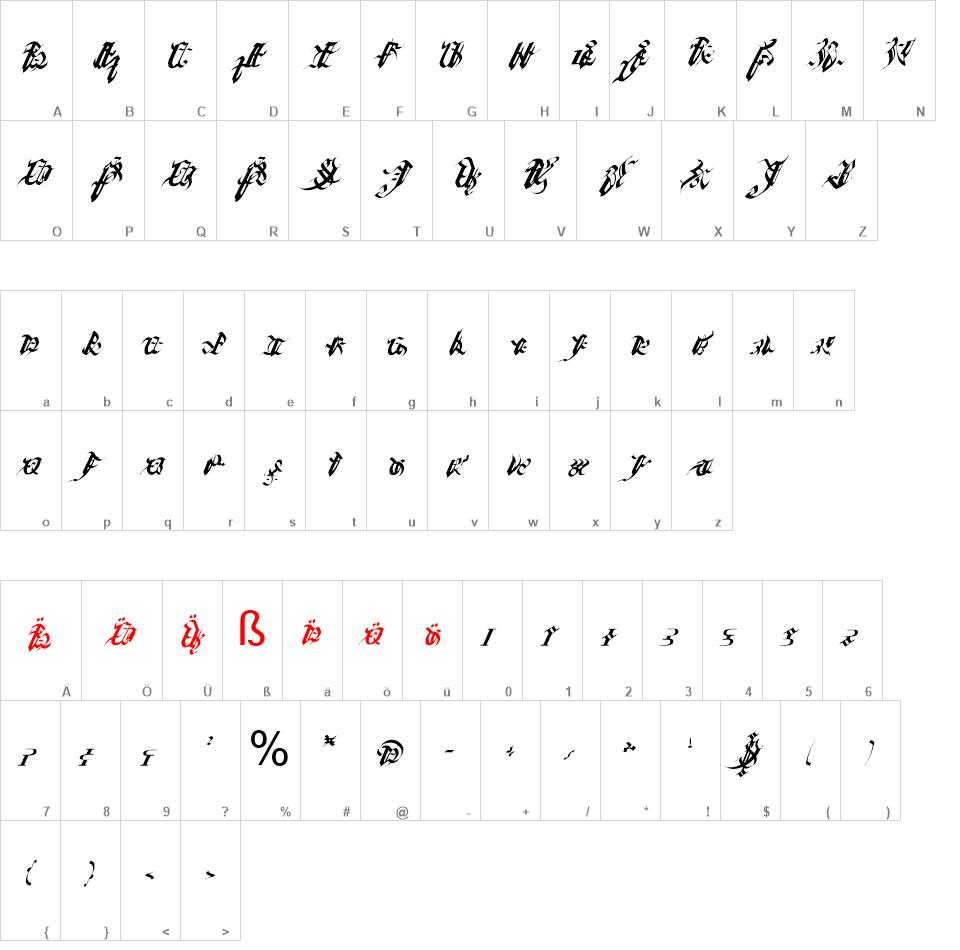
Ivalician Gothic
Ivalician Gothic font
Ivalician Gothic
Font used in the video game Final Fantasy XII - Drawn by myself but original design is © Square-Enix